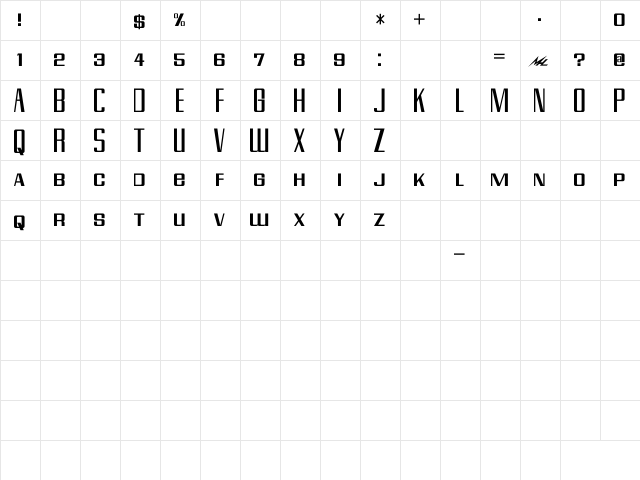
Heinlein Bold
Design Context for Heinlein Typeface
Heinlein offers clean, dependable letterforms without strong stylistic allegiance, making it a practical choice for designers who need flexibility. The heavy weight commands attention and anchors typographic hierarchies.